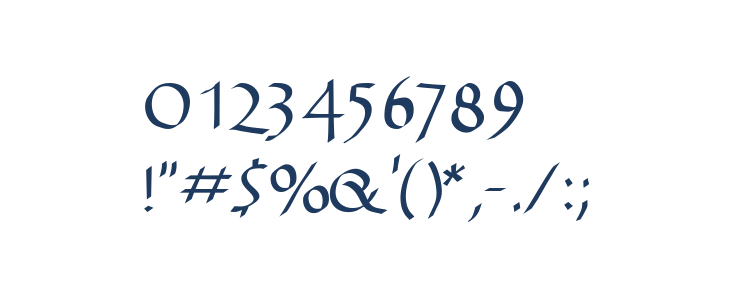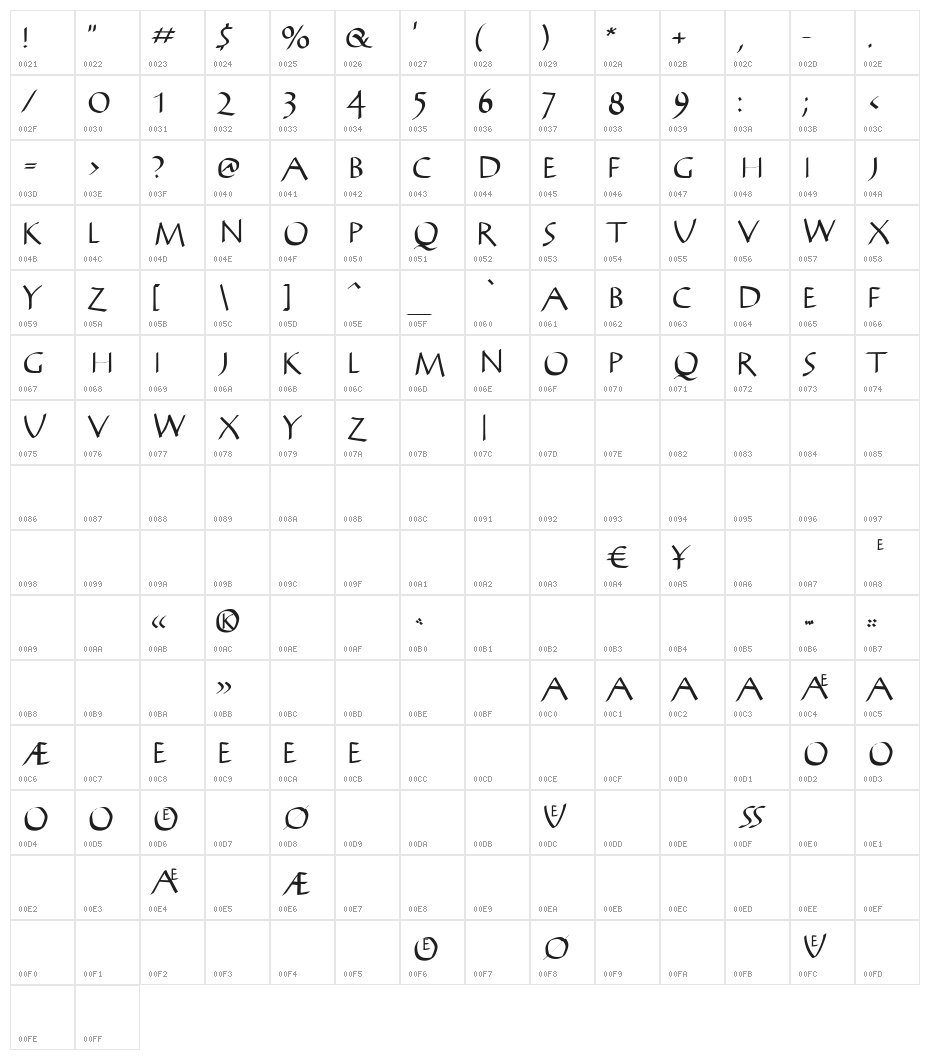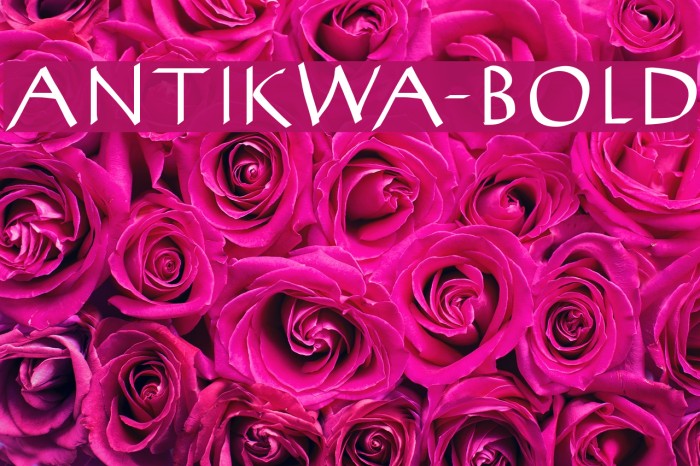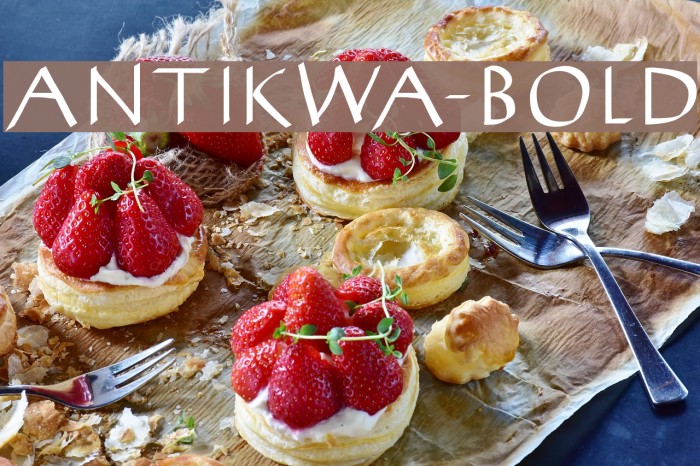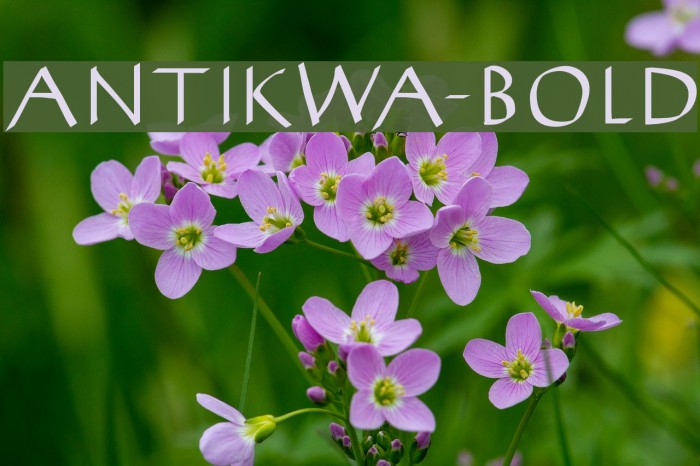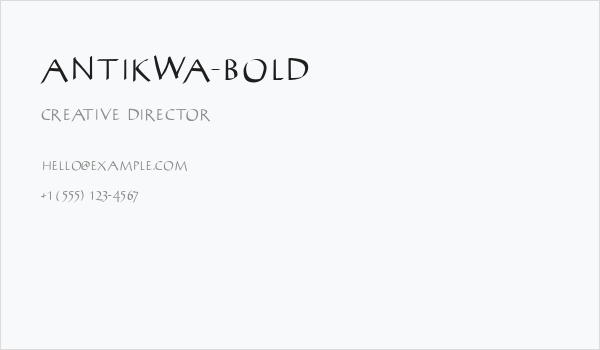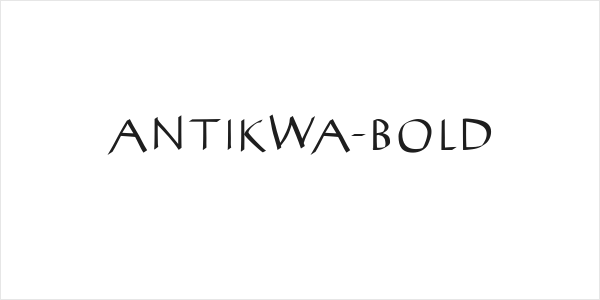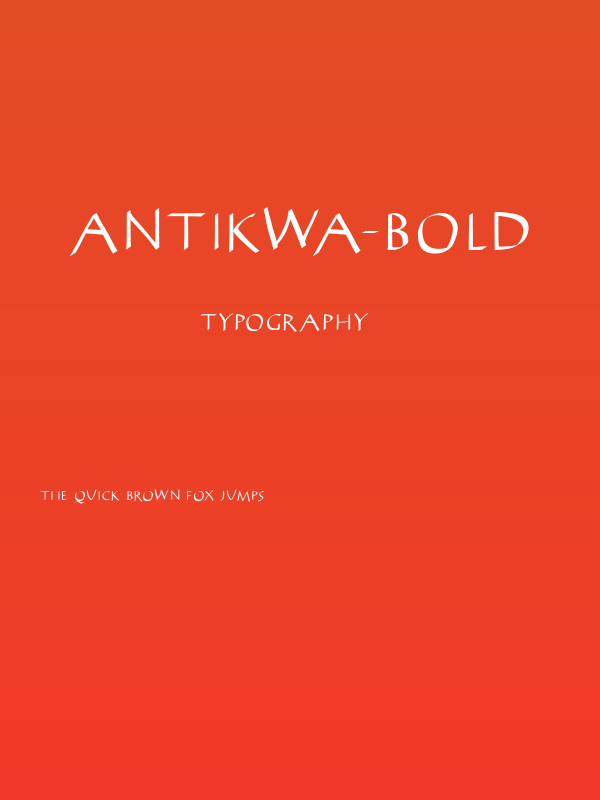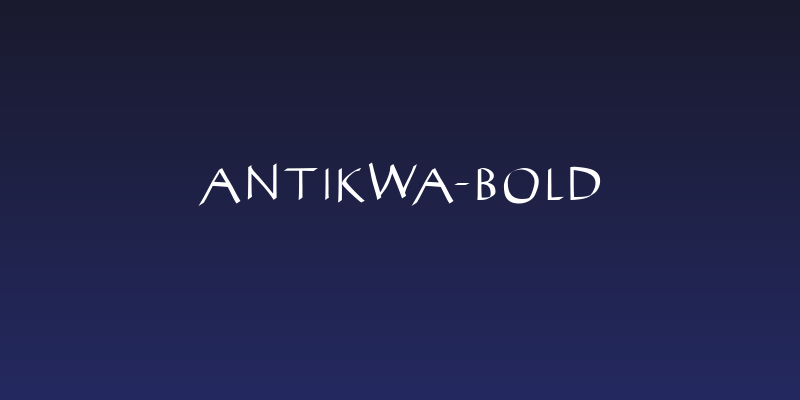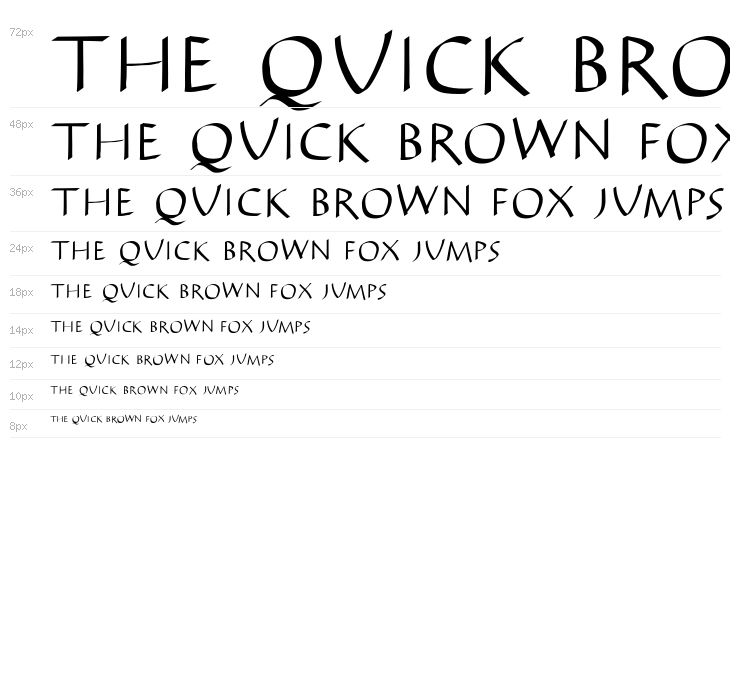
AntiKwa-Bold Font
AntiKwa-Bold Description
This font features a dynamic and angular design, characterized by sharp edges and a sense of movement. The uppercase letters exhibit a unique blend of traditional and modern elements, with some characters having elongated strokes that add a sense of elegance and flair. The lowercase letters maintain a consistent style, complementing the uppercase with their own distinct curves and angles. The numerals are bold and assertive, ensuring readability while maintaining the overall aesthetic. Special characters are crafted with the same attention to detail, making them suitable for various design needs.